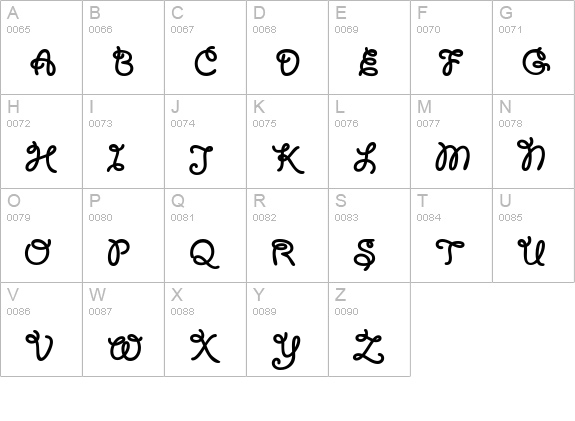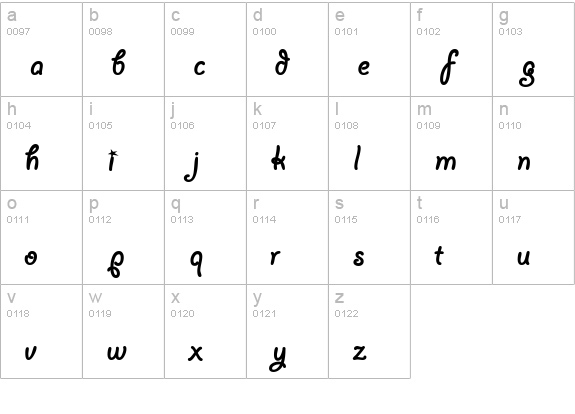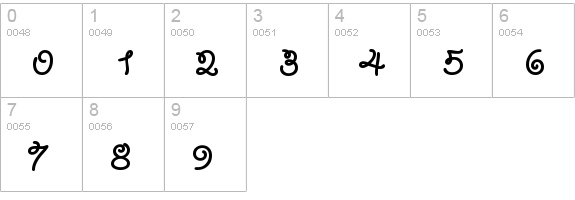
Lariat Font Details
Lariat font is a stunning display typeface that exudes elegance and sophistication. Its graceful curves and fine lines make it perfect for adding a touch of refinement to any design project. With its unique and versatile letterforms, Lariat font is sure to captivate and inspire. What sets Lariat font apart is not just its exquisite design, but also the fact that it is freely available to download at FontsMarket.com. This means that you can bring this exceptional font into your creative endeavors without any cost or restrictions. Whether you are a professional designer or a hobbyist, Lariat font is a valuable asset that will elevate your work to new heights. The beauty of Lariat font lies in its ability to effortlessly blend with a variety of design styles and themes. From luxurious branding to sophisticated invitations, this font adds a touch of elegance that is bound to leave a lasting impression. Its wide range of weights and alternate characters offer endless possibilities to create unique and personalized designs. Using Lariat font is a breeze, thanks to its well-crafted and easily readable letterforms. The attention to detail in every glyph ensures legibility at any size, making it suitable for both print and digital projects. Whether you're designing a logo, a wedding invitation, or a website, Lariat font will deliver a polished and professional look. So why wait? Discover the beauty and versatility of Lariat font today. Head over to FontsMarket.com and download it for free. With this exceptional typeface at your fingertips, you'll have the power to create stunning designs that leave a lasting impression.